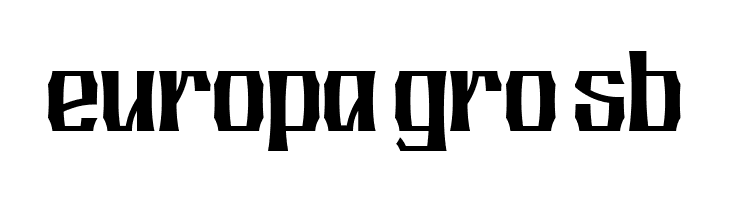
( Mevilia )
A modern, geometric font with elongated characters and a futuristic style.
A bold, geometric typeface with an industrial, mechanical style.
A bold, geometric typeface with a mechanical and robust style.
A playful, casual handwritten font with smooth, flowing lines.
A clean and modern sans-serif typeface with uniform stroke width and high legibility.
A bold, modern sans-serif font with strong geometric shapes.
A bold, italic sans-serif font with a modern and dynamic style.
A bold, modern sans-serif font with clean lines and balanced spacing.
A bold, italic sans-serif font with a modern and dynamic style.
A bold, modern sans-serif typeface with strong, uniform strokes.
A bold and italic sans-serif typeface with strong horizontal strokes.
A clean, minimalist sans-serif font with an airy and open design.
A modern, extra light, italic sans-serif font with a sleek and elegant design.
A modern sans-serif font with an elegant italic slant and clean lines.
A modern, light sans-serif font with clean lines and balanced spacing.
A sleek, modern sans-serif font with a light, italicized style.
A modern, clean sans-serif typeface with consistent stroke width and balanced spacing.
A modern, medium-weight, italic sans-serif font with clean lines and normal spacing.
A clean, modern sans-serif font with a semi-bold weight and excellent legibility.
A modern sans-serif font with semi-bold weight and italic style, offering clarity and dynamism.
A thin, modern sans-serif font with clean lines and balanced spacing.
A thin, elegant italic font with modern, elongated letterforms.
A flowing, elegant script font with bold, slanted uppercase letters and smooth, connected lowercase letters.
A bold, dynamic font with a modern, angular design.
A bold, decorative font with thick strokes and unique curves.
A lively and expressive handwritten font with fluid strokes and playful loops.
A flowing, elegant script font with smooth, continuous strokes.
An elegant and sophisticated font with high contrast and refined serifs.
Elegant cursive font with smooth, flowing strokes.
A graceful script font with flowing, elegant strokes and seamless connections.
A bold, angular font with a geometric and modern-vintage style.